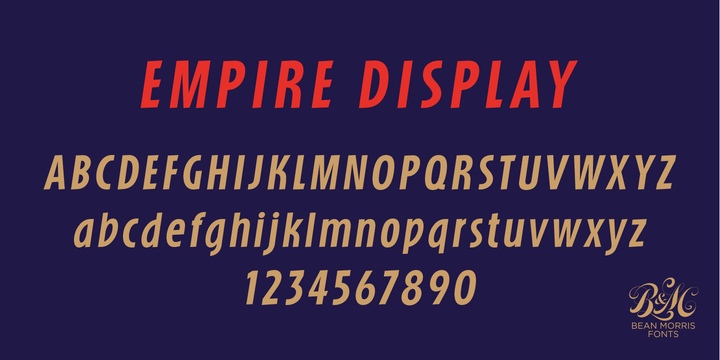
Empire Display Font
Empire Display Font is perfect for luxury hotel branding, prestigious real estate marketing, high-end financial services, exclusive membership club materials, luxury automotive advertising, premium brand campaigns, upscale hospitality signage, and corporate headquarters communications where authority and imperial grandeur are essential.
What makes Empire Display Font so exciting is its commanding ability to project absolute authority and imperial magnificence through bold, stately letterforms that embody the power and prestige of world-class organizations while maintaining exceptional impact for headline applications. The majestic character design reflects the dominance and excellence that defines market-leading luxury brands.
The Empire Display Font family includes light, regular, medium, bold, and black weights, with condensed variants and imperial-inspired ornamental elements that provide comprehensive tools for creating authoritative luxury branding and prestigious display design systems.
The font's bold character construction and commanding proportions create immediate associations with luxury leadership and corporate supremacy. Each letterform has been designed to convey the authority and prestige that defines world-class organizations and premium market positioning.
Empire Display Font excels in creating memorable brand presences that command respect and inspire confidence in luxury services and premium products. The typeface's imperial character makes it ideal for Fortune 500 companies, luxury service providers, and exclusive organizations targeting high-net-worth clientele.
From corporate boardrooms to luxury retail flagships, this font delivers the executive presence needed to communicate market leadership and premium positioning. The versatile design maintains its imperial character across both traditional luxury applications and modern digital executive platforms.